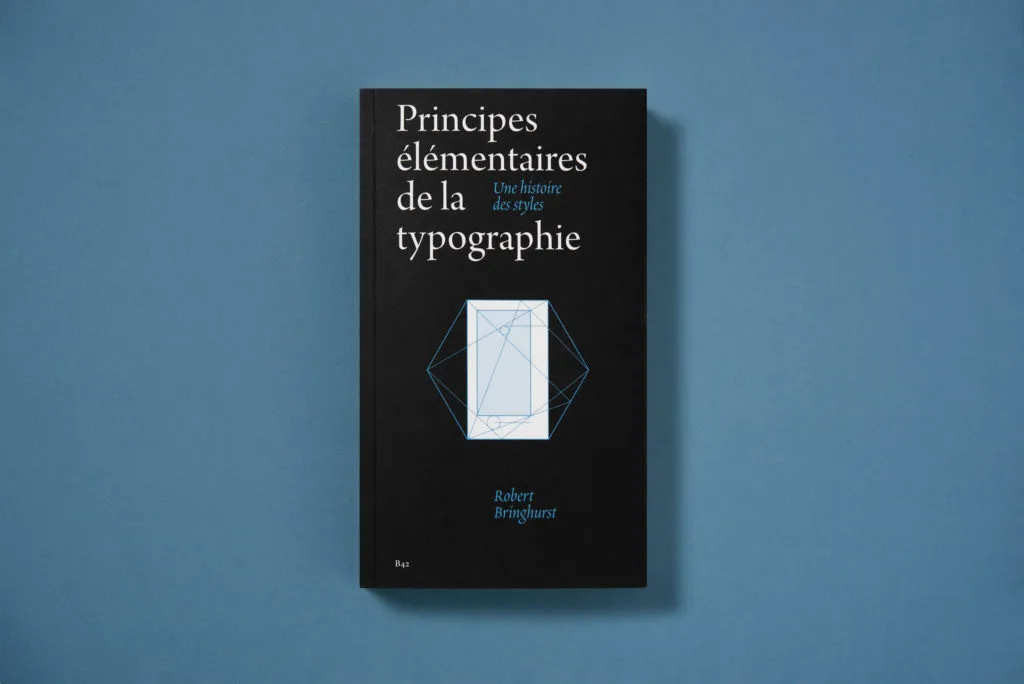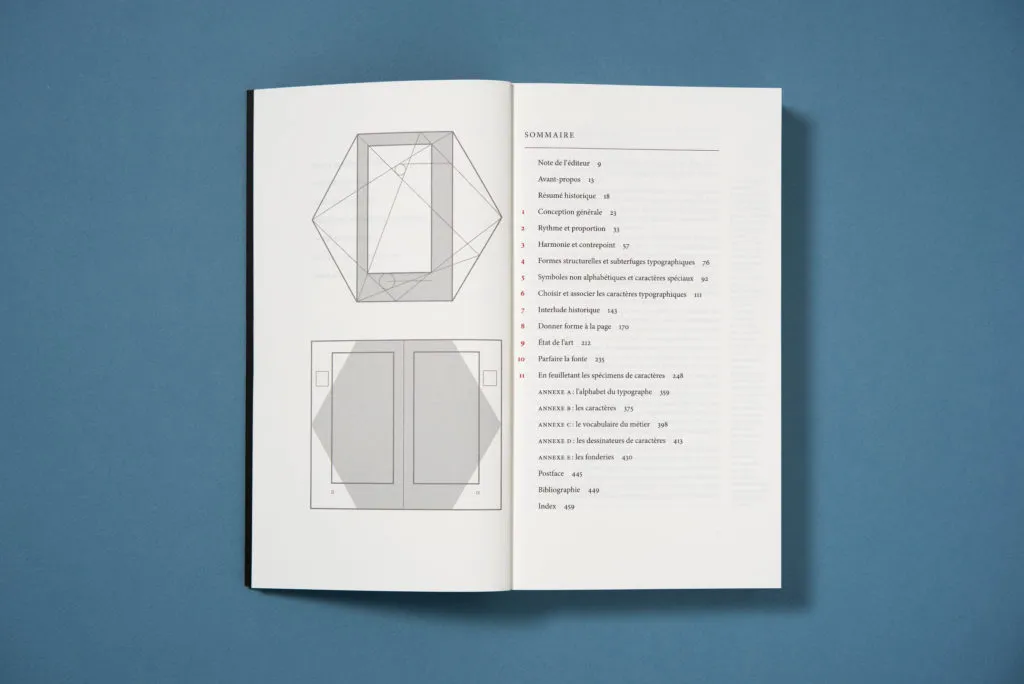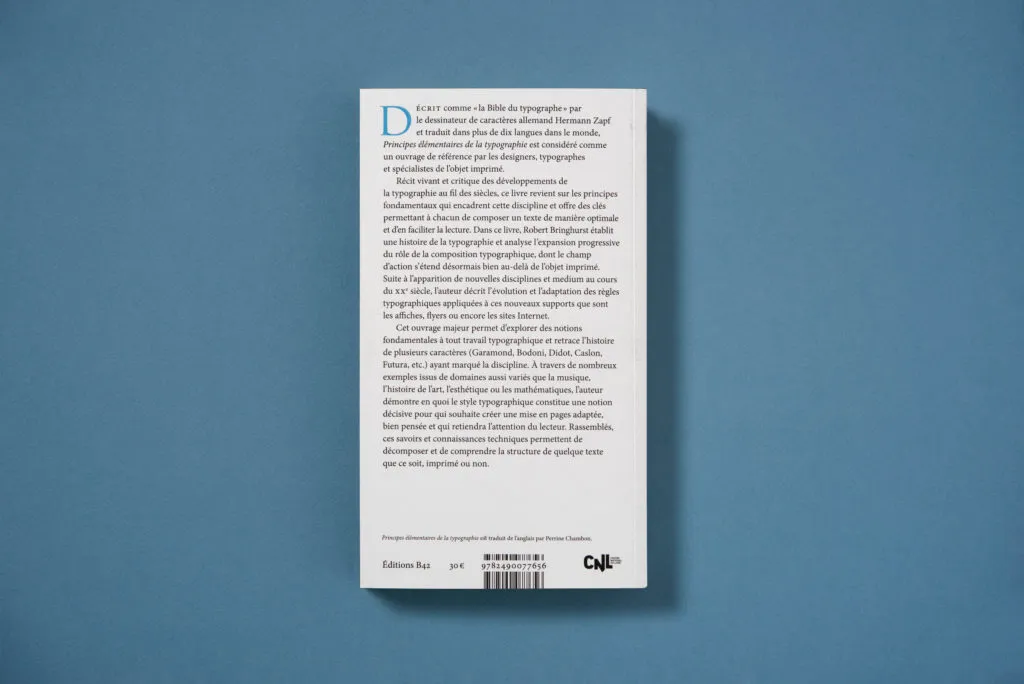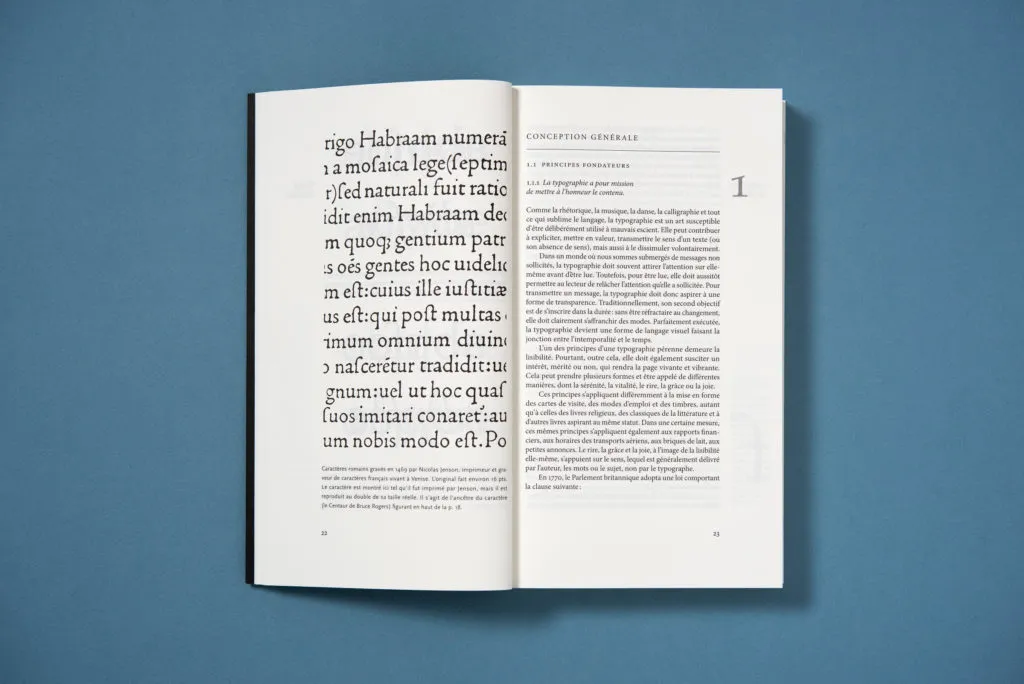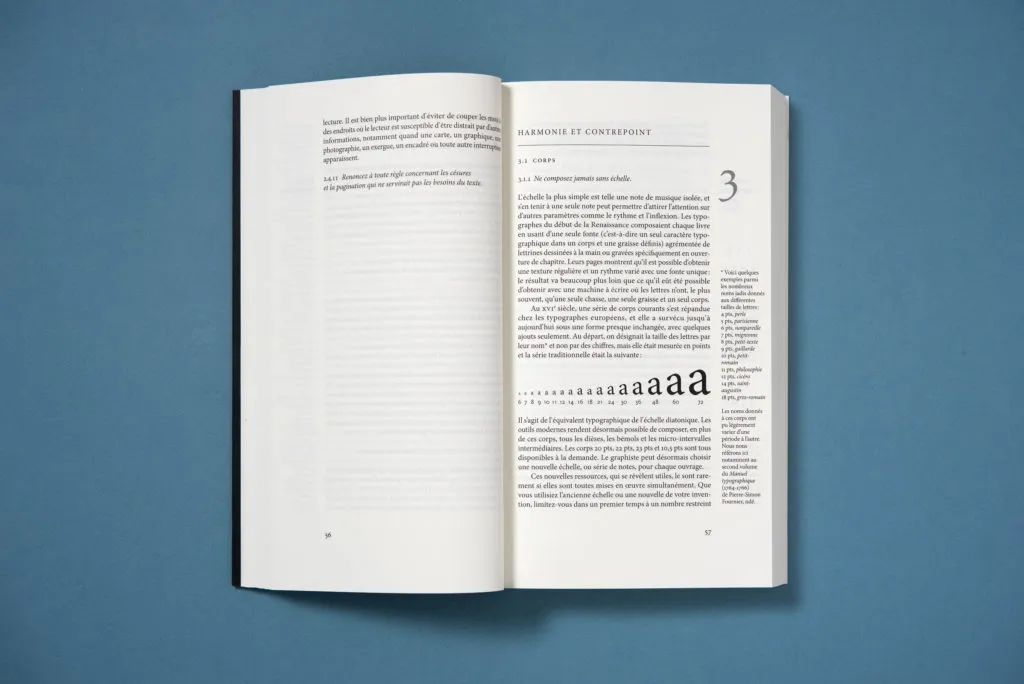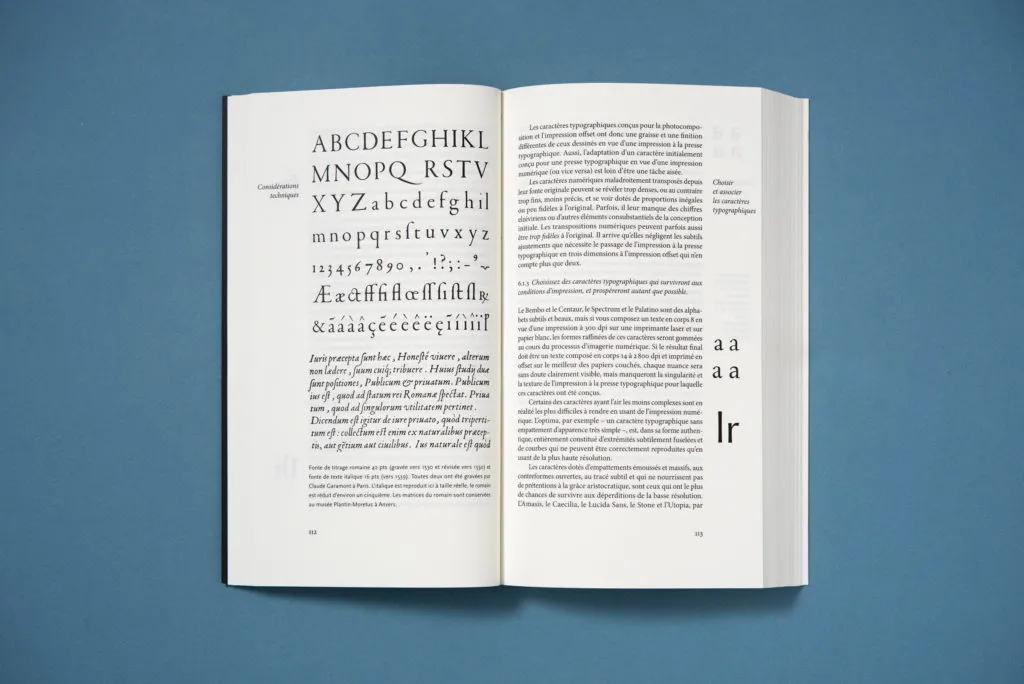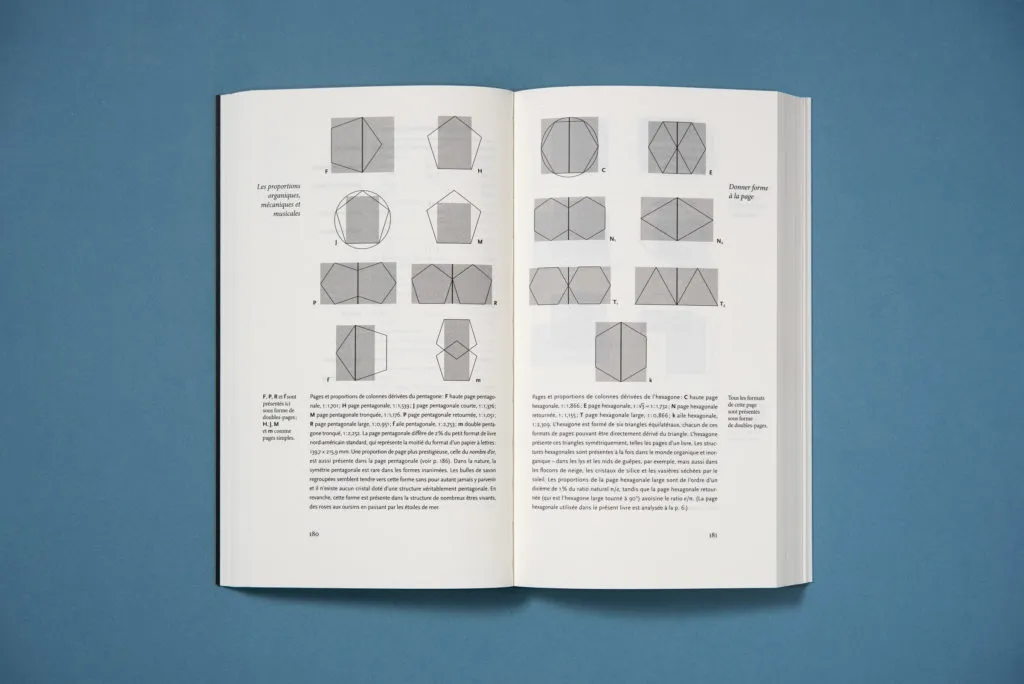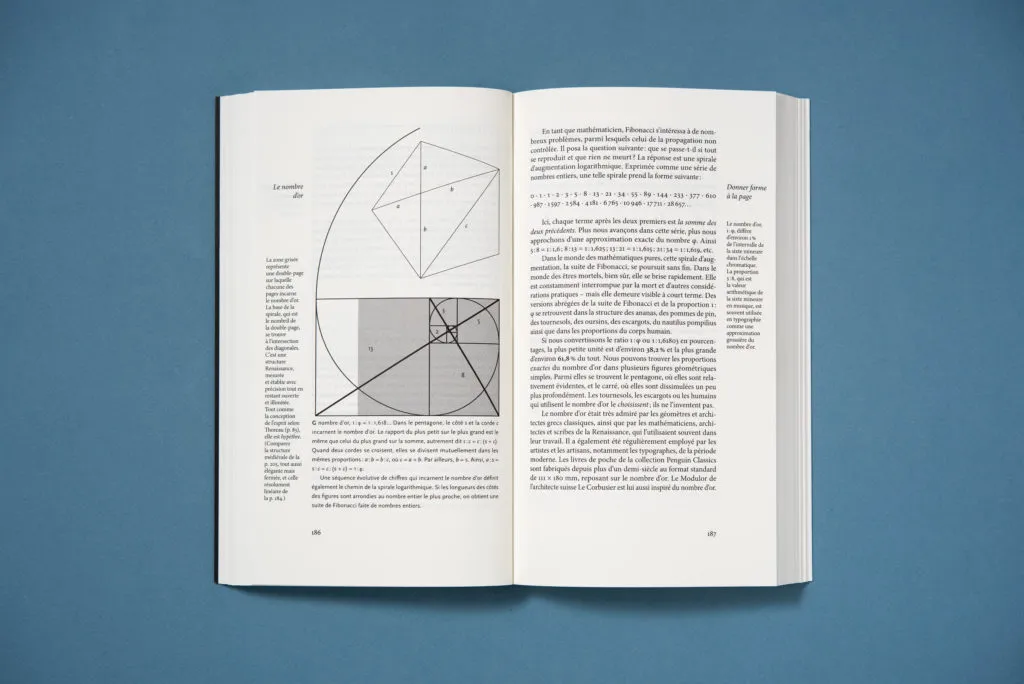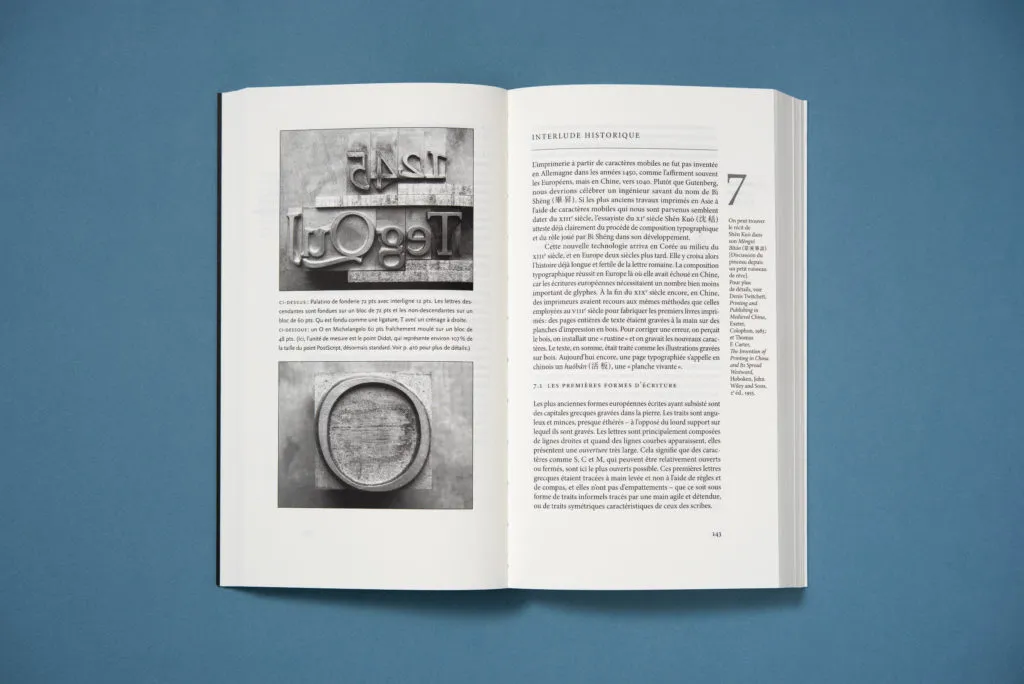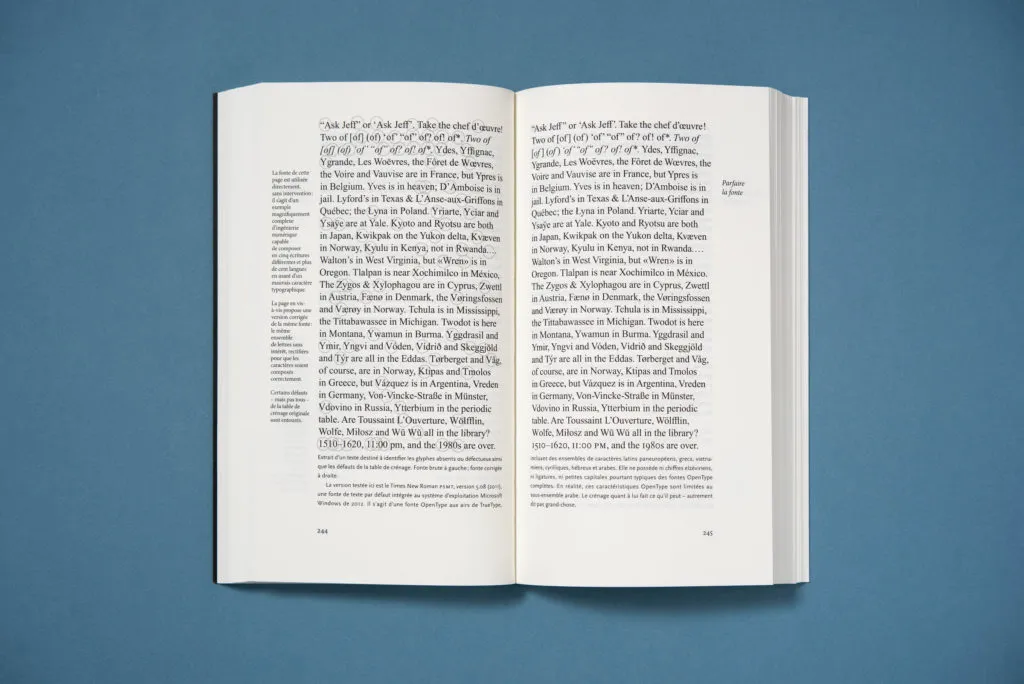
The Elements of Typographic style
How to do the best typographic layout?
The Elements of Typographic Style
It is becoming increasingly rare for a French publisher to publish a reference book that was previously only available in English. In fact, every publisher in the field of graphic design and typography must have a series of manuals in its catalogue that establishes a solid link between its readership of graphic designers (students, beginners or experienced) and the rest of its catalogue. Retaining readers is easier when they are at the beginning of their careers...
The excellent B42 publishing house, founded in 2008 by Alexandre Dimos (also co-creator of Studio DeValence), has already made a name for itself by publishing numerous titles by international stars such as Robin Kinross, Otl Aicher, Otto Neurath, Fred Smeijers, Jost Hochuli, Gerard Unger. Among these titles, which stand like steles in the pantheon of typographic publishing, B42 has decided to publish in French the catalogue of the excellent London publishing house Hyphen Press (1980-2017) founded by Robin Kinross (1949-).
The Parisian publishing house will probably provide us in the near future with other indispensable volumes to perfect practical and scientific knowledge.
Robert Bringhurst (1946-) is best known in the publishing world for his talents as a poet, in verse and prose, and as a translator. However, this scholar and typography enthusiast has slowly been forging opuses to fill the gaps in our libraries.
The Elements of Typographic Styles is certainly his standard work, published in 1992 by Hartley & Marks Publishers, and revised in 1996, 2001 (v2.4), 2002 (v2.5), 2004 (v3.0), 2005 (v3.1), 2008 (v3.2), and 2012 (v4.0).
Hermann Zapf (1918-2015) said of this book, "I wish to see this book become the Typographers' Bible. Jonathan Hoefler (1970-) and Tobias Frere-Jones (1970-) consider it "the finest book ever written about typography," according to the FAQ page of their typographic foundry.
But how does this volume make it an important reference in the typographic publishing landscape?
The first surprising feature of this book is its literary quality, both in its writing and typographic design. It is true that the title is already an unconcealed allusion to The Elements of Style, a classic writing guide written in 1920 by William Strunk Jr (1869-1946). The links between typography and text are obvious, but here the text is a literary material and not just the medium of language in the same way as graphic signs or images.
The 477 pages of the French edition are extremely respectful of the original edition: the format, pagination, typography and layout are in every respect similar to the original edition. B42, in this mission, is as much an adapter of the text as of the overall spirit, and the few translator's notes underline the care given to the integrity of the text.
The narrow format of the book refers to the Renaissance editions where the double-page spread fits into the space of a hexagon. The French cover, the only freedom from the English edition, displays the canon also reproduced in the opening pages. The demonstration is made: the book is the best example of the knowledge distilled in its pages.
The table of contents is laid out with the utmost simplicity. The general classicism of the layout is a tour de force of minimalism whose spirit is not incompatible with functionalist modernity, even if it is also a guarantor of classical tradition. Good graphic design, as emphasised in the opening pages, has no side, only that which works and from where one wishes to take it.
The table of content is a demonstration of pragmatic purity and elegance.
The canons on the left page are also demonstrating that the book itself is the best example.
The book is intended to be a manual on typography, from the synopsis of its historical creation to its calibration on the page.
The first three chapters are an excellent introduction to the philosophy of classical typographic composition. Through his writing and the poetic images used, Bringhurst distils with pedagogy and naturalness what many teachers struggle to share with students. It is this breath of fresh air that is the author's strength, rather than the erudition that can easily be found in other textbooks.
The first chapters are introducing a wide panorama of type history.
The author's choices are not always easy to follow. Thus, after the first few chapters dealing with the composition of certain levels of text (headings, beginning of paragraphs, captions, notes, etc.), the reader is led to consider ligatures and hyphenation. Bringhurst aims to be relatively comprehensive, presenting the glyphs common in English, but also ligatures limited to the Greek italic alphabet, as well as the rules and exceptions for many languages, without being complete.
The example of the entry on the hyphen is quite telling. The author discusses the history of the hyphen, its use by Estienne and Gamaront during the Renaissance, its graphic aspect, whether it was slanted or not, single or double. In the same paragraphs, the author goes on to discuss the conflicts between the calligraphic or purely linear and modernist versions preferred by font distributors as opposed to the choices of type designers. From these aesthetic considerations, the type designer will receive totally relevant content, but the graphic designer or layout artist will probably be lost in the richness that is so profoundly necessary for total professional success.
It is this completeness of approach, but this in-between exhaustiveness, that seems to be shaky. The use of complementary and specialised manuals is essential for the graphic designer wishing to perfect the knowledge distilled here in dots, even if this requires the acquisition of numerous books.
These chapters are not the most original ones, but the author is remarkably pertinent.
Bringhurst anchors his approach in that of a textual pedagogy, where reading is the anchor of knowledge. The book's format, which respects the classical canons, confirms this choice, and the consultation of the volume is closer to that of a novel than a guide to visual culture.
The examples illustrated are numerous and telling, but their placement and functioning are almost secondary, both in their dedicated spaces and in the relative discretion of their presentation.
One could have dreamt of a manual working by double-page, with commented and corrected counter-examples in order to understand how the settings produce an indisputable harmony. Other more contemporary authors have successfully attempted this didactic exercise.
Photograph pictures remain exceptions in the book. The examples shown are also only theoretical and no real project are displayed.
Another point that seems to me to be a pity is that the historical interlude in chapter 7 should have appeared much earlier. Indeed, the previous chapter, devoted to the marriage of characters, alludes to historical contexts that are dealt with later. Things are quickly fixed, but the logical link is fragile.
On the other hand, Chapter 8, devoted to the page and its margins, is masterly erudite. It is probably the book that compiles the largest number of page layout canons, with 27 explicit examples. It also draws a clever parallel between the Pythagorean scale of musical tones and variations in page proportions, both of which are based on numerical ratios: an analogy that has never been crossed before.
The canons for page proportions are really exciting, establishing a great comparison between musical scale and page proportions.
Bringhurst works differently. His voice and his mind require the unfolding of the text, in a quasi-narrative approach, so that the knowledge is anchored deeply in the mind. If the image speaks for itself and is worth all the talk, it can remain the surface of knowledge that needs to be approached with more finesse. And this is probably the author's tour de force: to be a learning companion who distils with finesse knowledge that it would be too easy to summarise in an image.
The author's aim is not so much to offer a guide that can be consulted in the face of the problem, but to approach the problem as a context to be circumscribed with caution and understanding. Instead of the culture of zapping and consultation, he seems to prefer slow and wise reflection.
Basic mathematics and geometry provides a good taste for establishing the page proportion and layout.
Elementary Principles of Typography, a History of Style
(The Elements of Typographic Style)
Robert Bringhurst
Price: €30
Catalogue number: B42-165
Release: March 2023
Language: French
Design: Robert Bringhurst
Graphic adaptation: deValence
Format: 140 x 235 mm
Pages: 480 p.
ISBN: 9782490077656
Translation: Perrine Chambon
Revision: Marc Kopylov & Jeanne Lebastard
___
Table of contents:
- Foreword
- Historical Synopsis
- The Grand Design
- Rhythm & Proportion
- Harmony & Counterpoint
- Structural Forms & Devices
- Analphabetic Symbols
- Choosing & Combining Type
- Historical Interlude
- Shaping the Page
- The State of the Art
- Prowling the Specimen Books
- Appendix A: Spells & Characters
- Appendix B: Glossary of Terms
- Appendix C: Type Designers
- Appendix D: Typefoundries
- Appendix E: Recapitulation
- Appendix F: Further Reading
Afterword to the Second Edition
Index
Most of the book is massive text. Don't take it as boring content, the author excelled at writing in a very fluid and pictorial style.